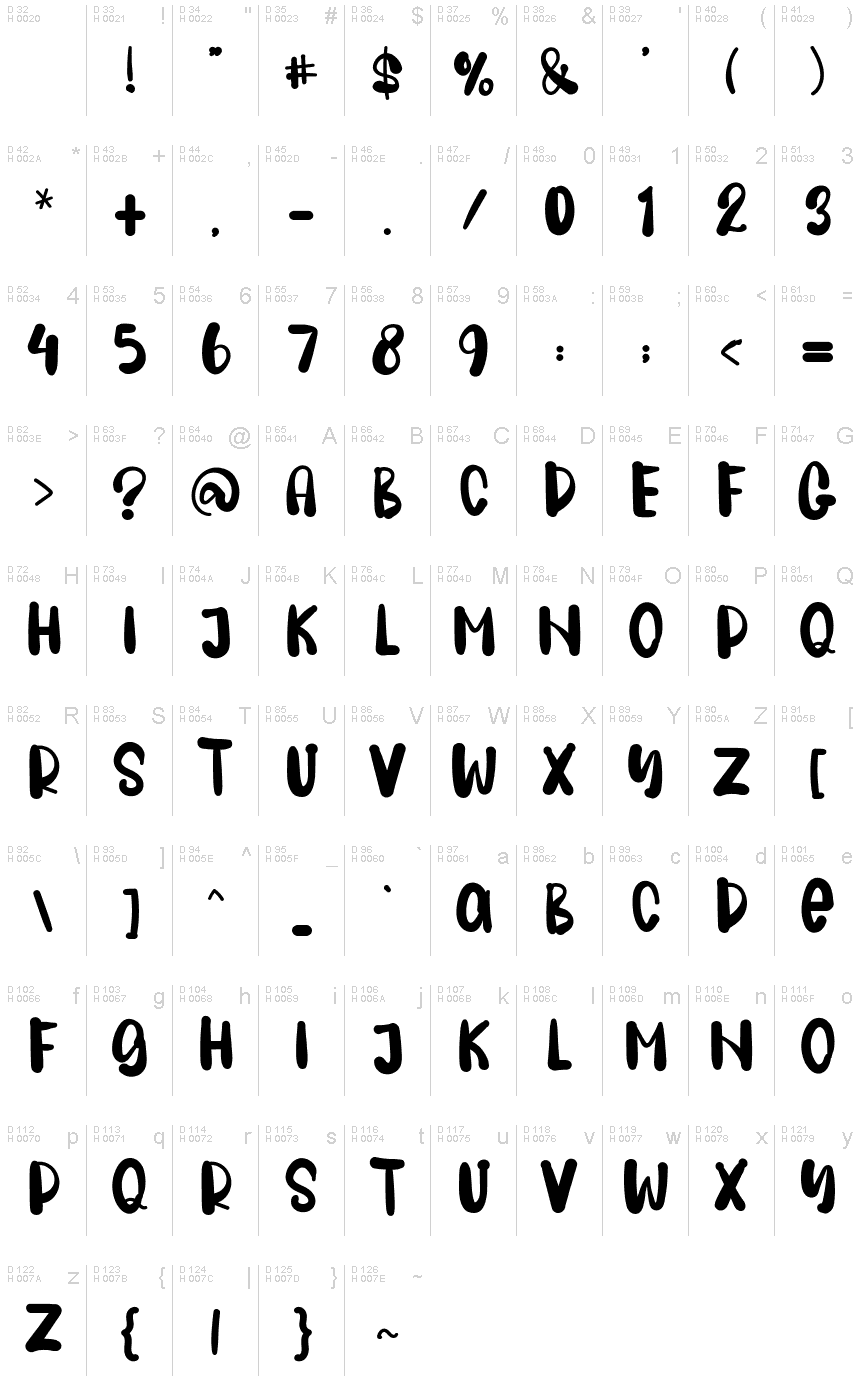
FRESH PAPAYA
Fresh Papaya by K_IN Studio is a bold display font that is perfect for adding a fun, playful touch to your designs. Its cartoon-inspired style makes it ideal for children's books, posters, packaging, and invitations. With its thick strokes and unique shapes, this font will make your message stand out while maintaining readability. Whether you're designing for a birthday party or a product launch, Fresh Papaya will add the perfect touch of whimsy to your project. Give your designs a fresh start with Fresh Papaya!